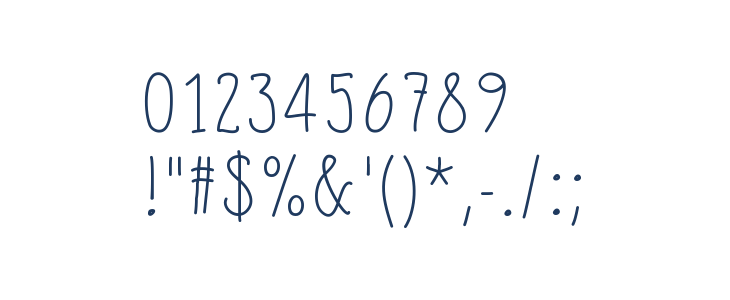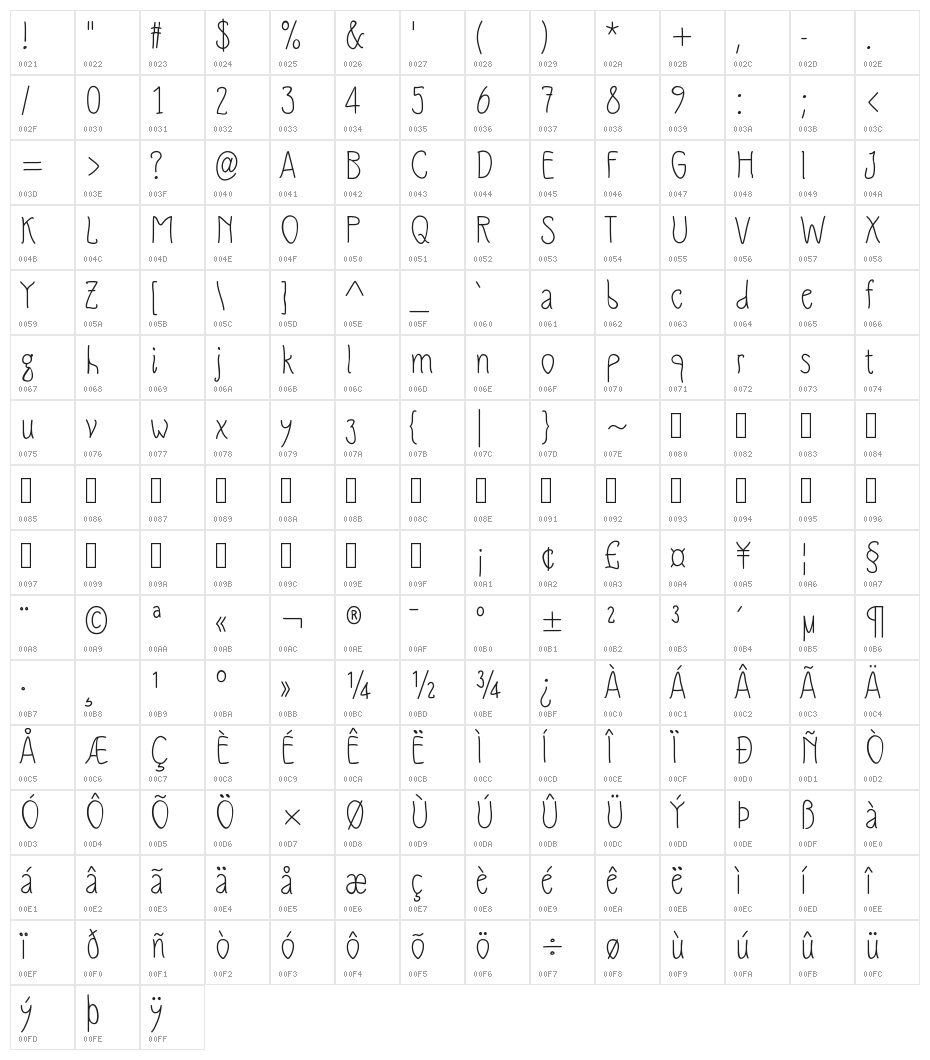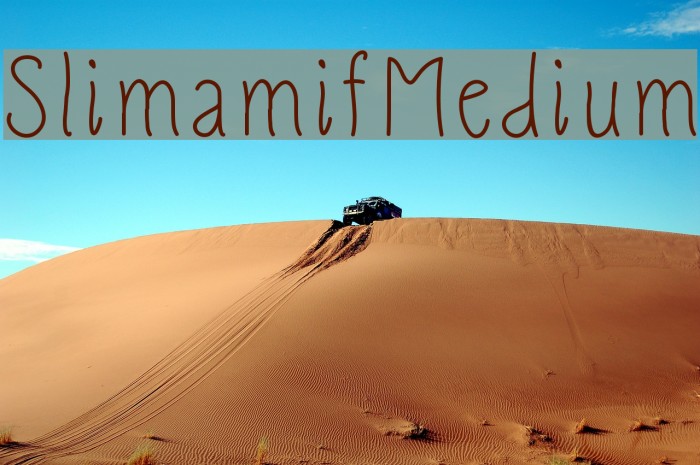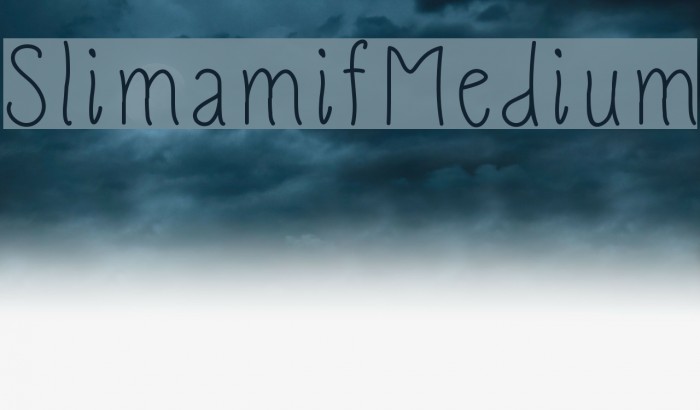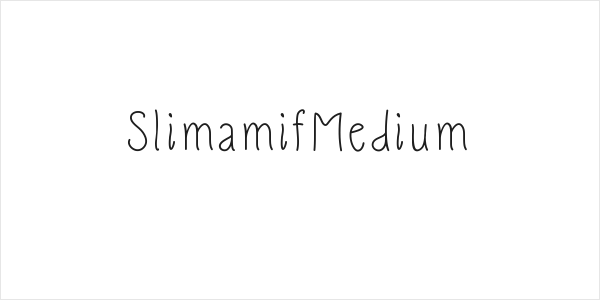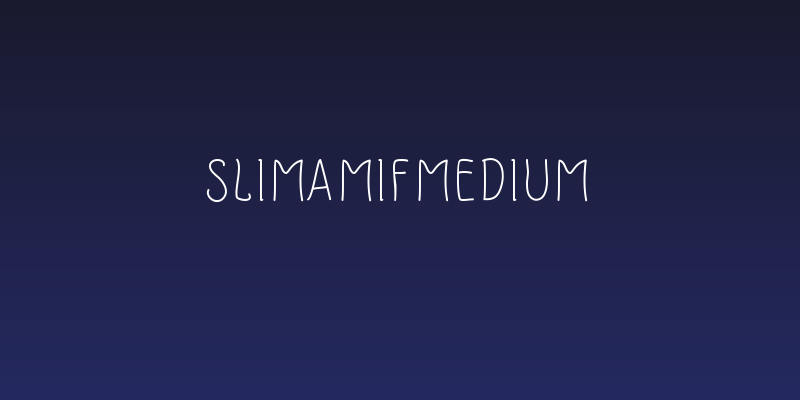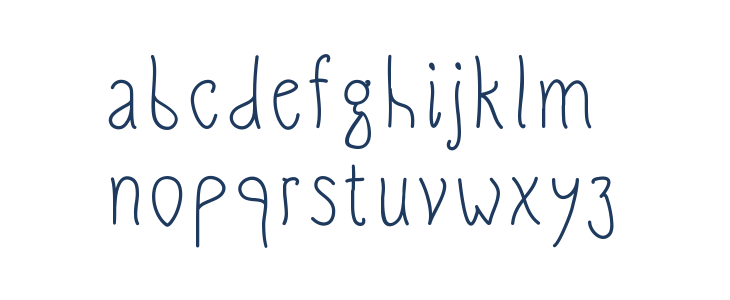
SlimamifMedium Font
SlimamifMedium Description
This font exhibits a playful and whimsical handwritten style, characterized by its tall, slender letterforms and slightly irregular strokes. The uppercase and lowercase letters maintain a consistent height, contributing to a cohesive appearance. The numerals and special characters follow the same design principles, ensuring uniformity across all glyphs. The strokes are thin, with a slight variation in thickness that adds a touch of dynamism without compromising readability. This font's casual and friendly aesthetic makes it suitable for projects that require a personal touch.